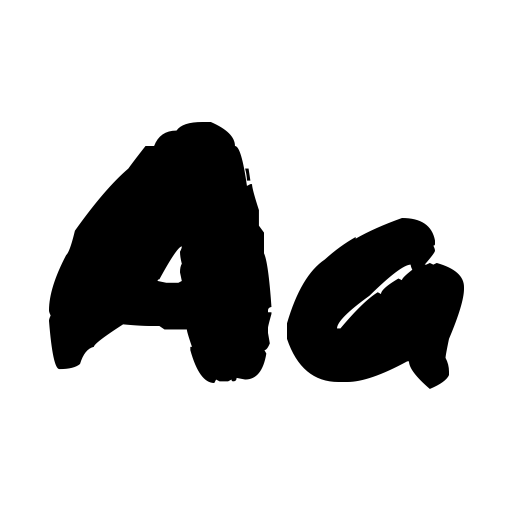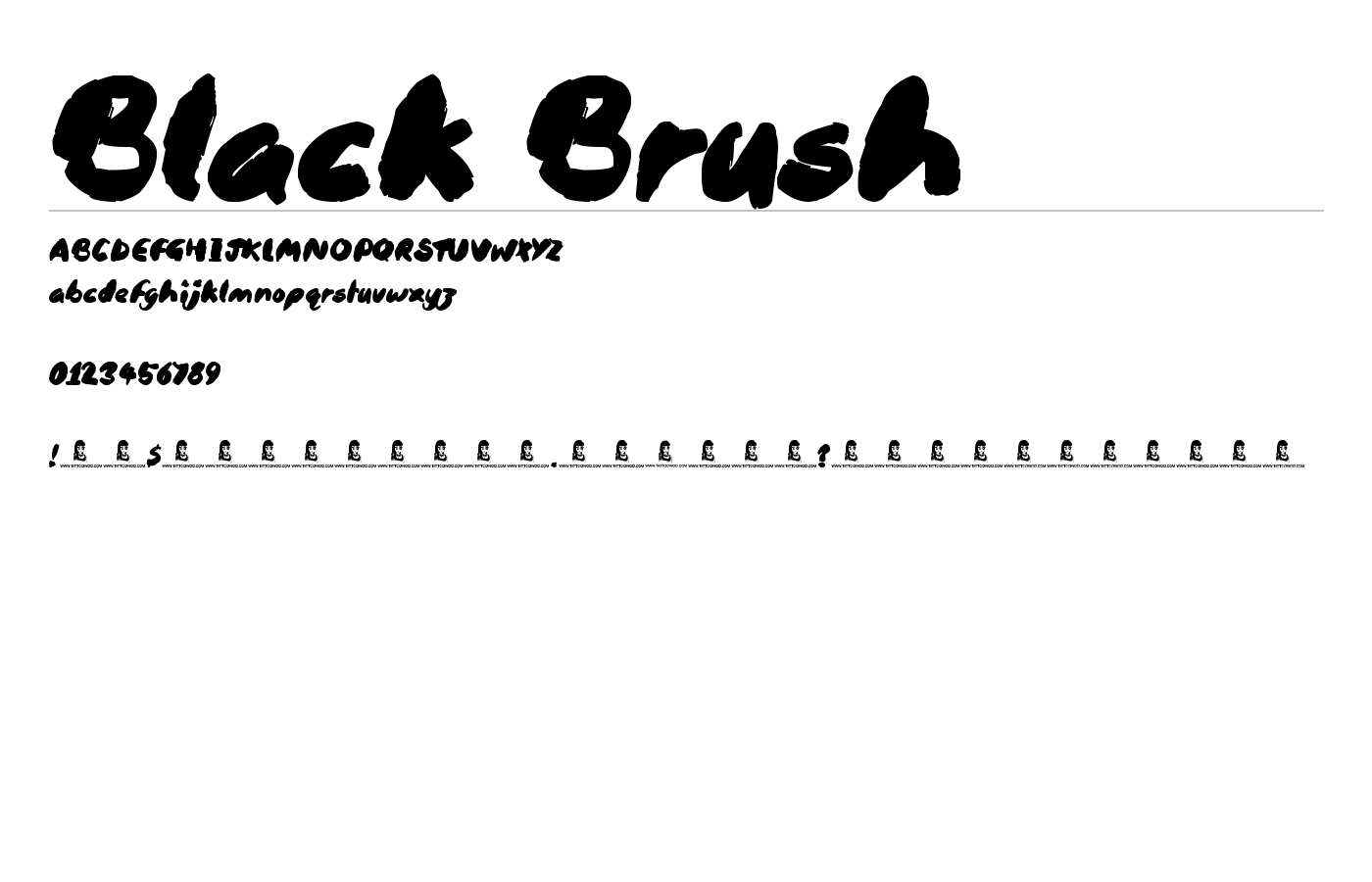
Black Brush is a bold, lively brush script font that mimics hand-painted strokes with a rich, textured appearance. Its thick, irregular letterforms and casual style create a dynamic and artistic feel, making it perfect for creative branding, packaging, and eye-catching headlines where personality and a handcrafted touch are desired.
Black Brush Font
About Black Brush Font
| Font family | Black Brush Font |
| Designer | Jonathan S. Harris |